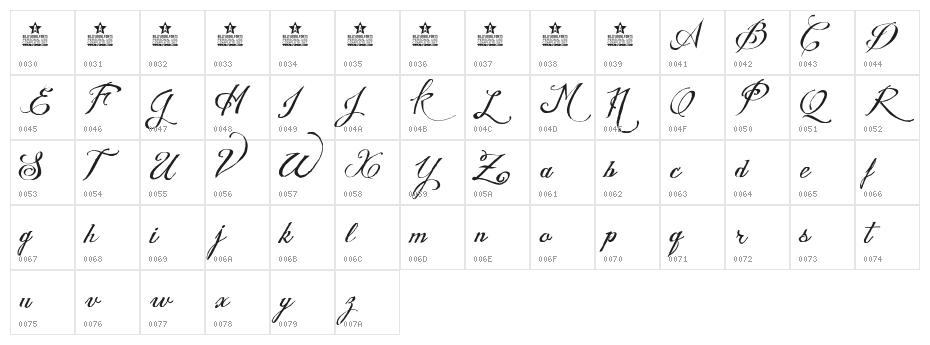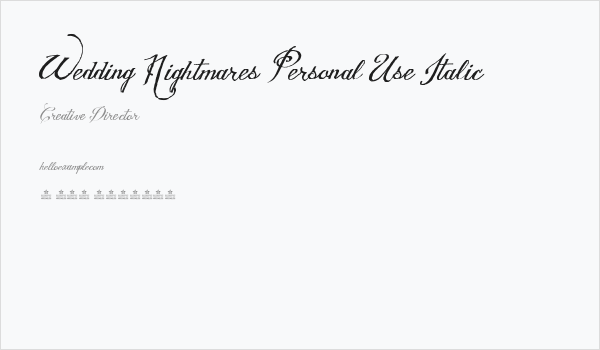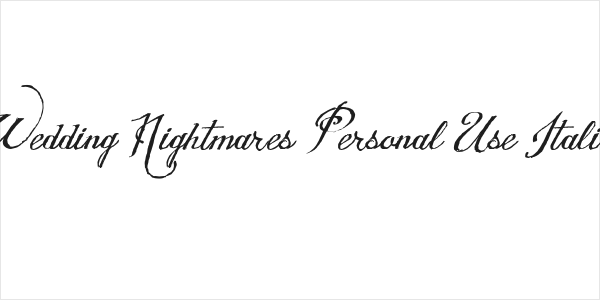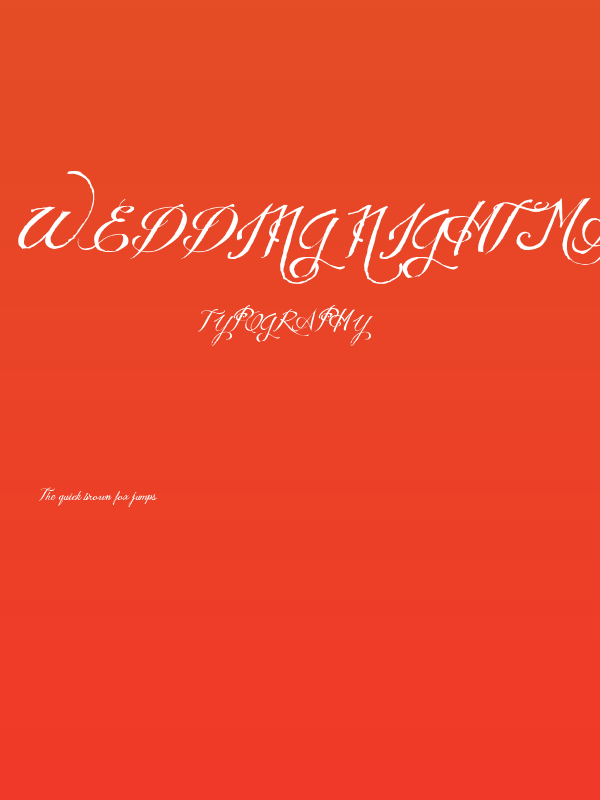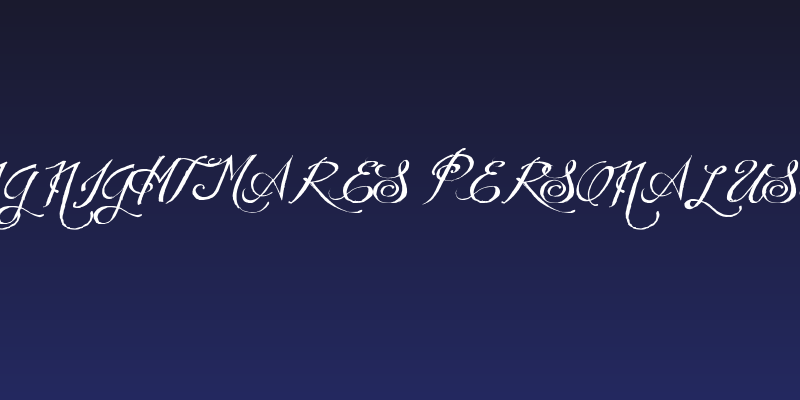
Wedding Nightmares Personal Use Italic Font
Wedding Nightmares Personal Use Italic Description
This font exudes a dramatic and elegant flair, characterized by its sweeping, cursive strokes and intricate detailing. The uppercase letters are particularly ornate, with flourishes that extend beyond the baseline and cap height, creating a sense of movement and fluidity. The lowercase letters maintain a consistent style, offering a harmonious blend of curves and sharp angles. This font's italic nature enhances its dynamic appearance, making it suitable for designs that require a touch of sophistication and artistry. The overall impression is one of vintage charm, reminiscent of calligraphic styles used in formal invitations and decorative text.